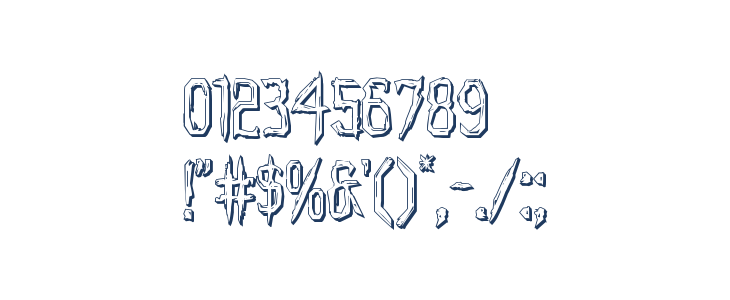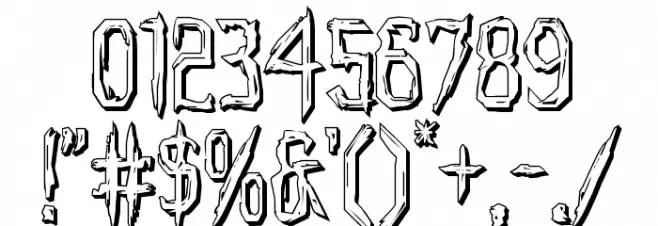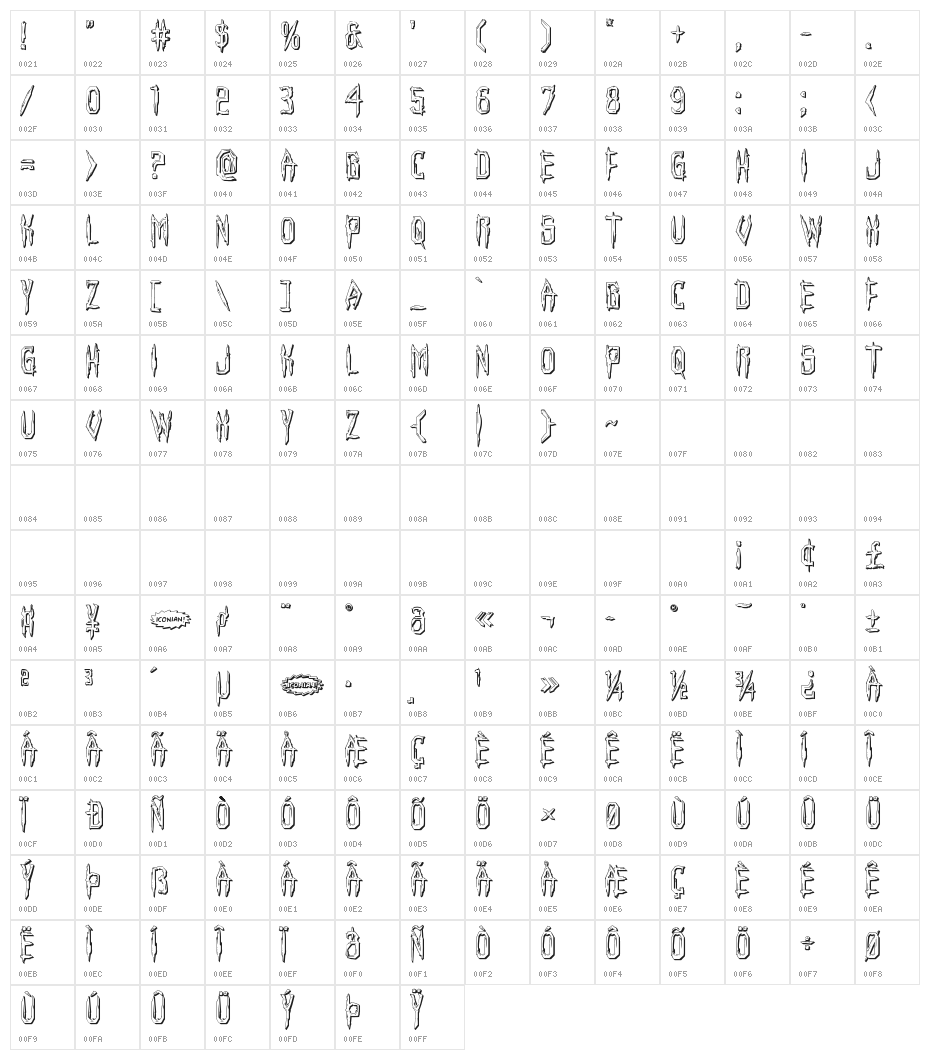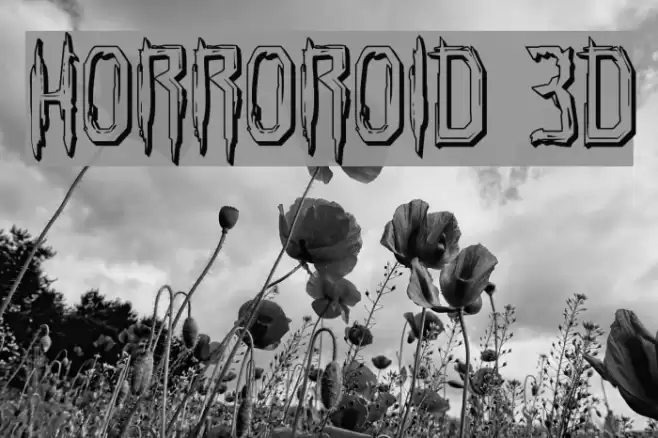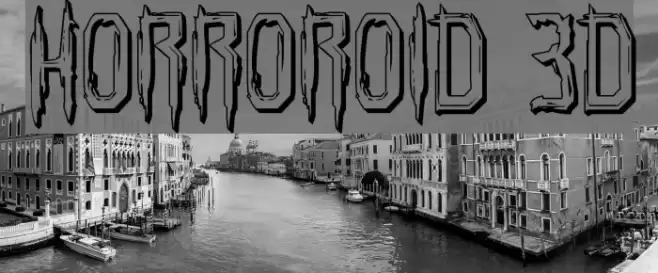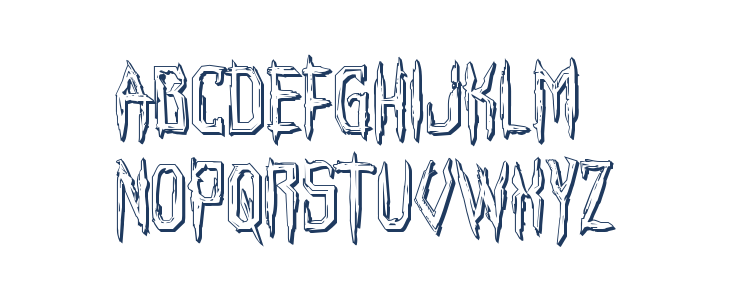
Horroroid 3D Font
Horroroid 3D Description
This font features a bold and striking design with a three-dimensional effect that gives it a unique, edgy appearance. The characters are sharp and angular, with a jagged outline that enhances its dramatic and intense style. The uppercase and lowercase letters maintain a consistent design, while the numbers and special characters complement the overall aesthetic. This font is perfect for projects that require a horror or thriller theme, as its design evokes a sense of mystery and suspense. The intricate details in each character make it stand out, ensuring that any text using this font will capture attention.
| Proposed Projects | Ideal for horror-themed posters, movie titles, Halloween invitations, and video game graphics. |